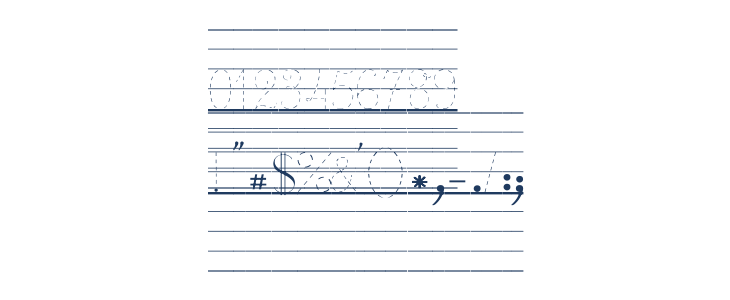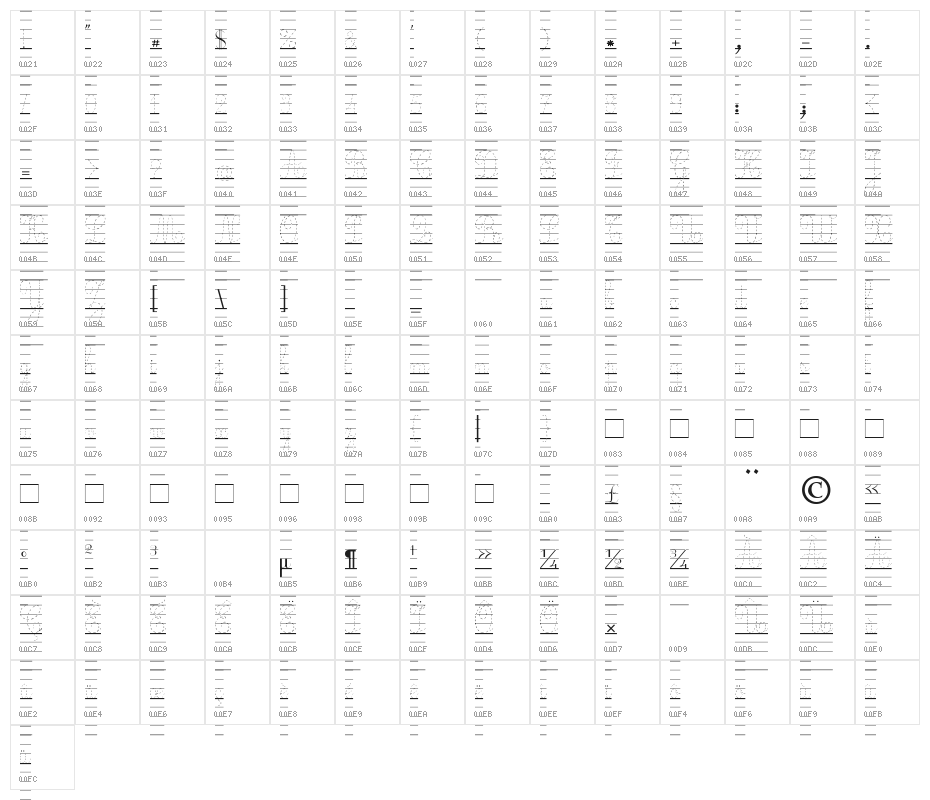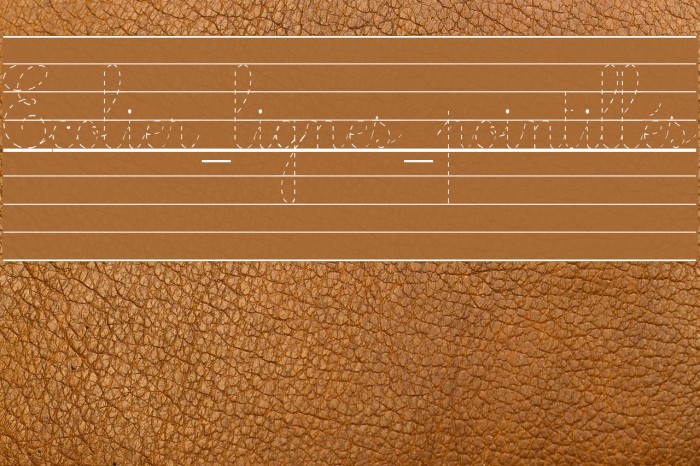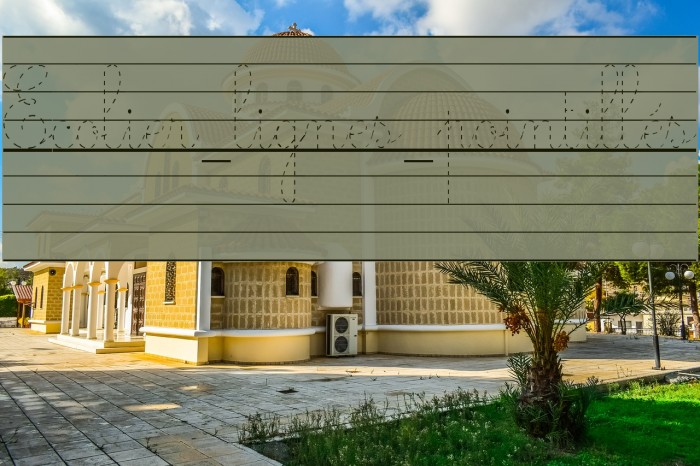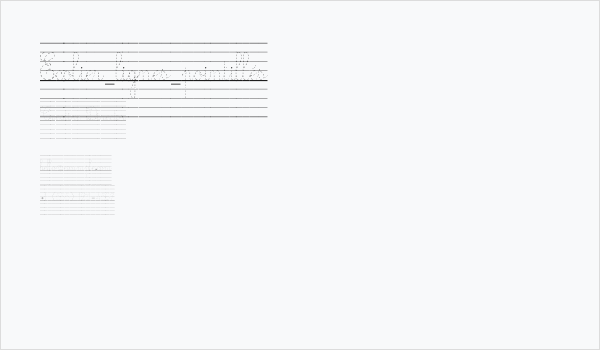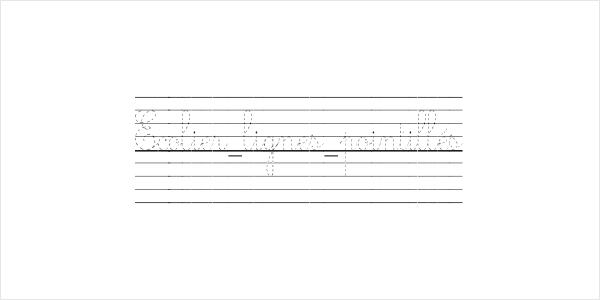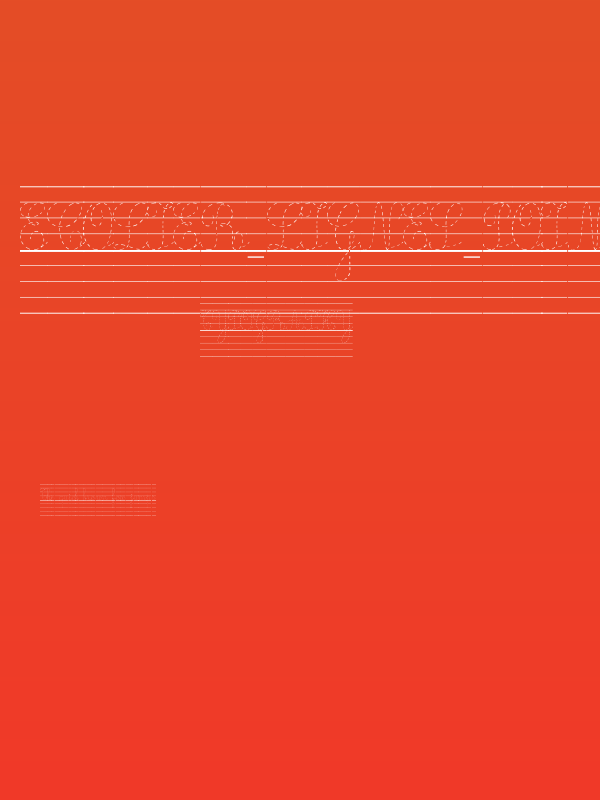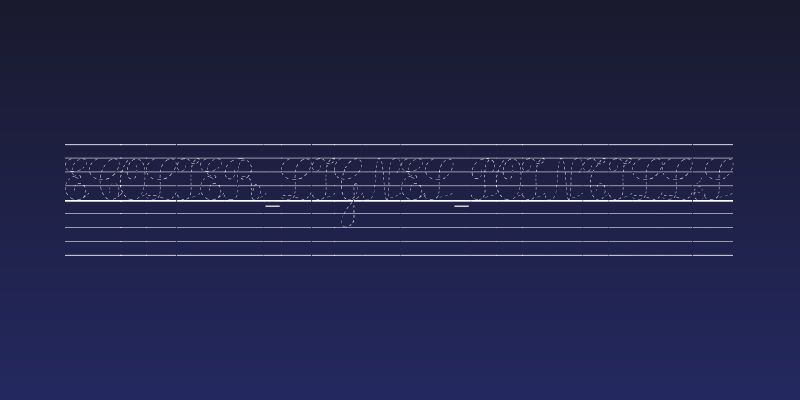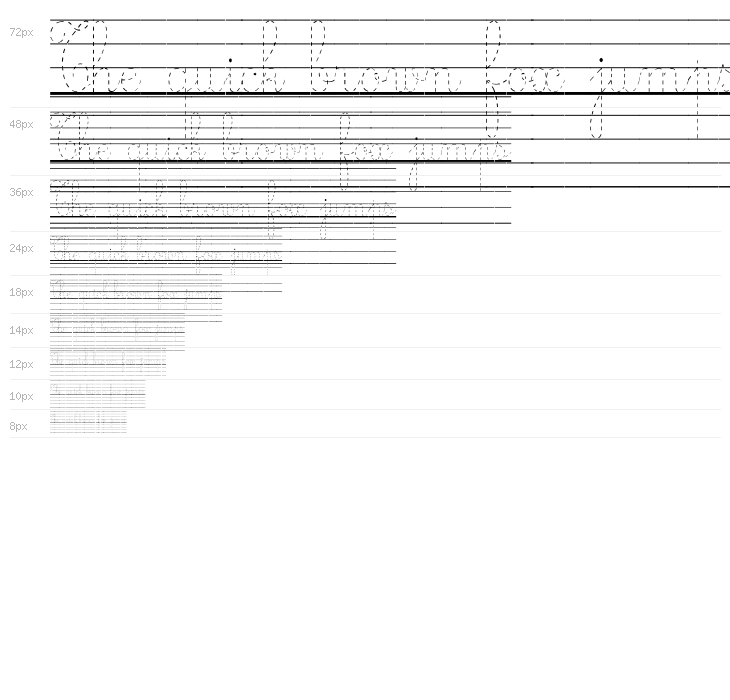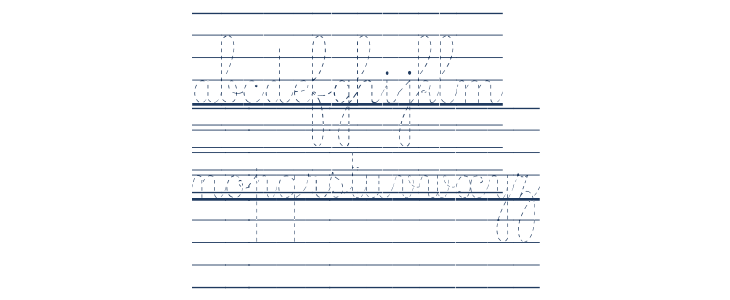
Ecolier_lignes_pointillés Font
Ecolier_lignes_pointillés Description
This font is designed to mimic the style of handwriting practice sheets, featuring dotted lines to guide the formation of letters. Each character is crafted with a series of dots, creating a playful and educational aesthetic. The uppercase and lowercase letters are well-proportioned, maintaining a consistent height and width that aligns with traditional handwriting guides. Numbers and special characters follow the same dotted pattern, ensuring a cohesive look across all glyphs. This font is ideal for educational purposes, particularly in teaching children how to write. Its unique design not only serves a functional purpose but also adds a whimsical touch to any project.
| Overall Style | Educational, Playful |
| Use Case | Educational materials, Handwriting practice |
| Proposed Projects | Perfect for educational materials, children's books, handwriting practice sheets, and playful design projects. |